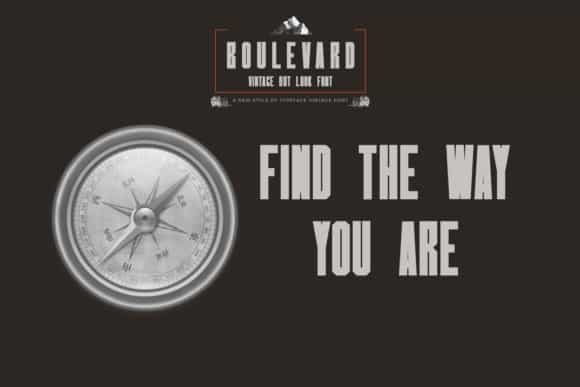
Boulevard Display Font
Boulevard Display Fonts includes uppercase letters, numerals, a large range of punctuation. This font is designed and shared by JujunGag. It’s a vintage display font. This typeface features a powerful and vintage styles and it brings cute illustrations. It’s perfect for logos, book covers, branding, magazines and much more!
Boulevard Display Font is a great font for game, album cover, logo, branding, magazine, social media, & advertisements, but also works great for other projects.